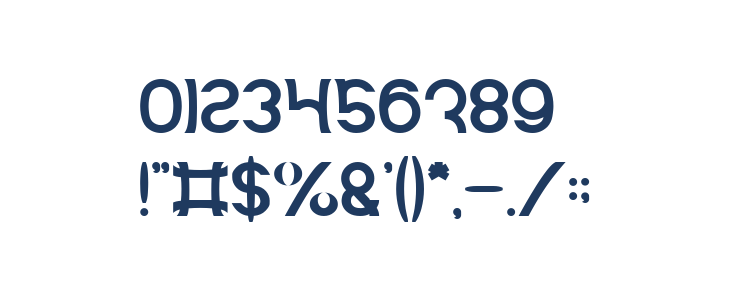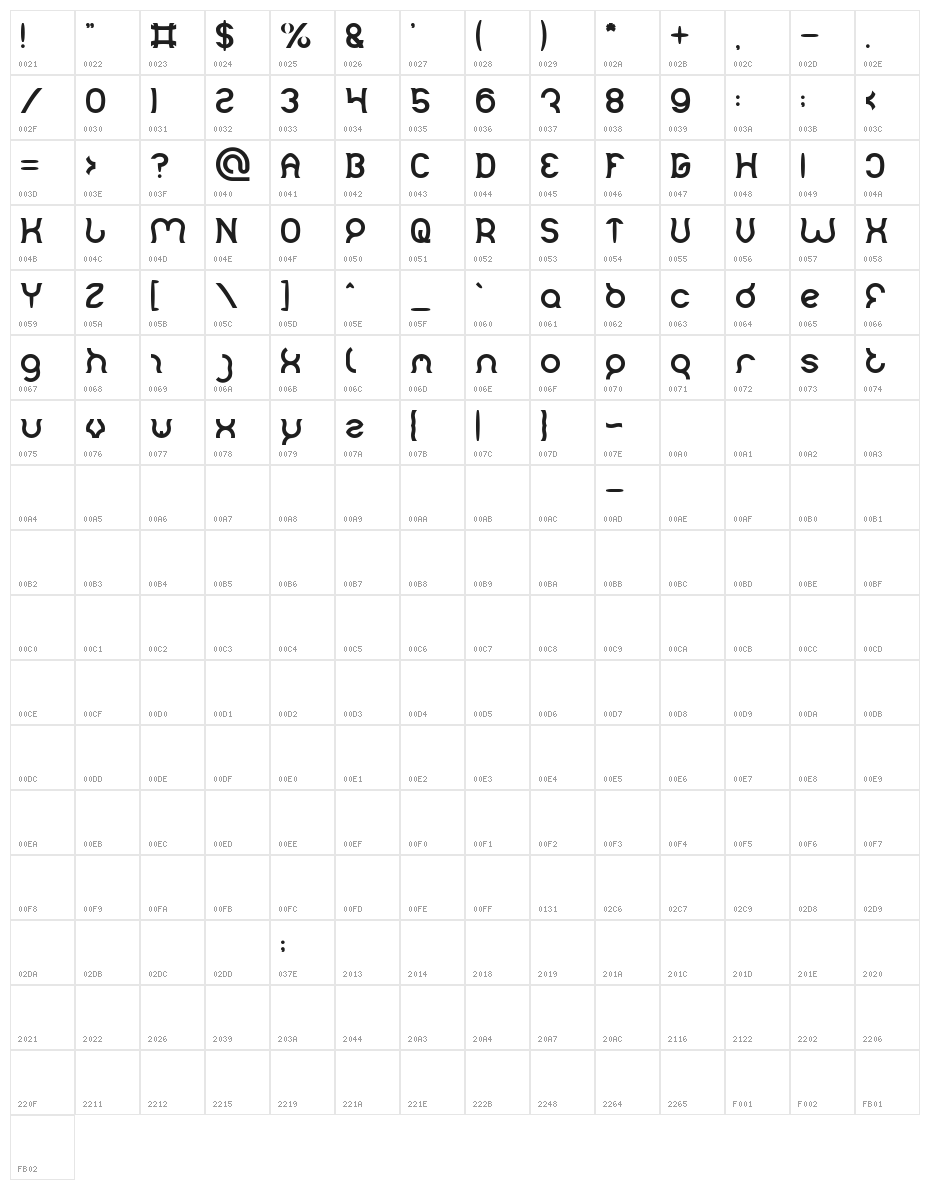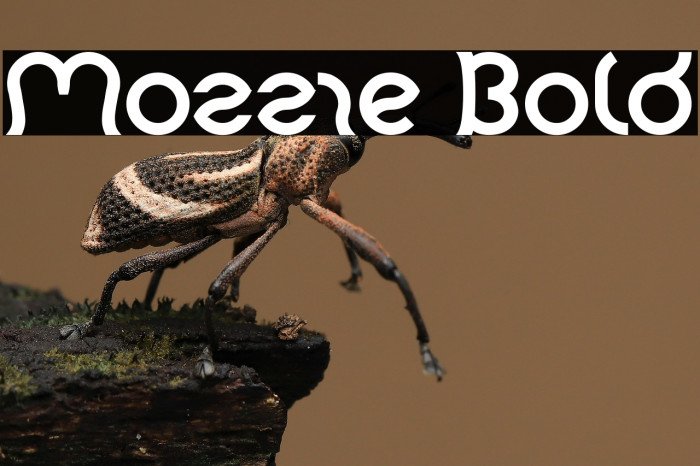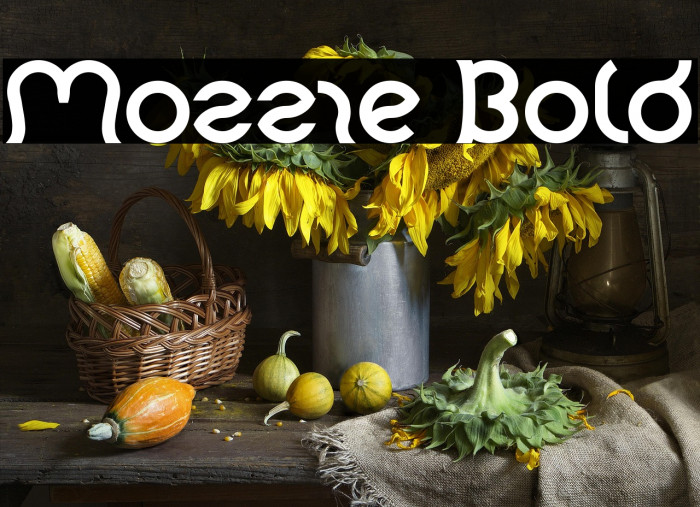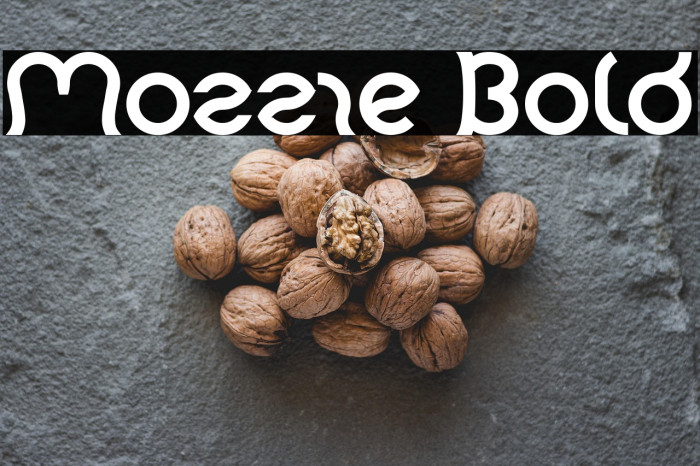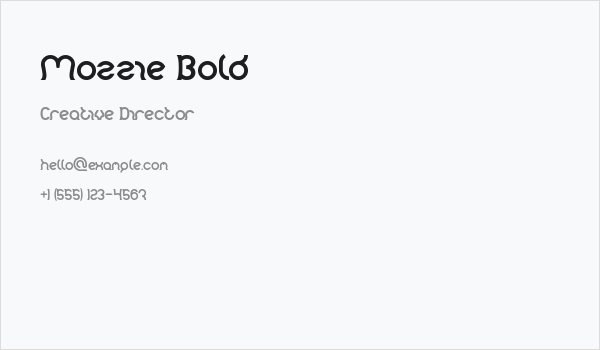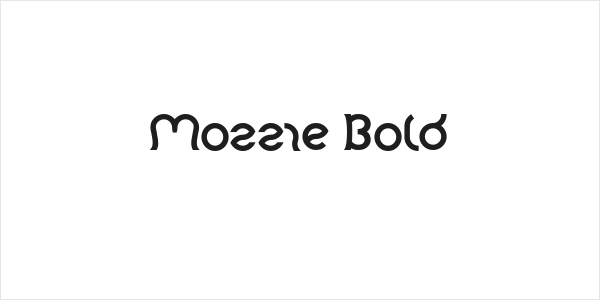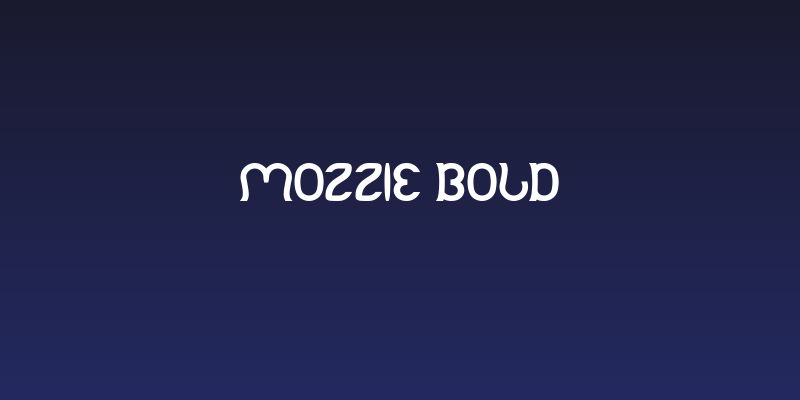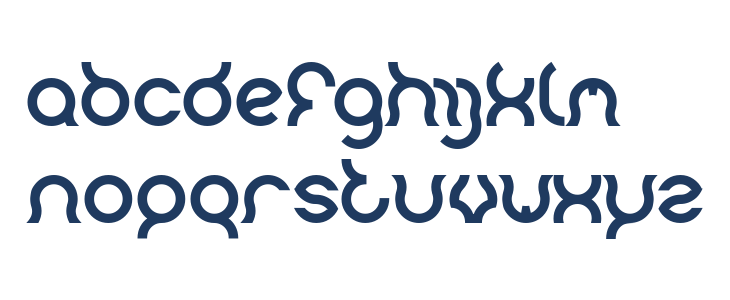
Mozzie Bold Font
Mozzie Bold Description
This font features a bold and playful design with unique curves and loops that give it a distinctive and whimsical appearance. The characters are well-rounded with a consistent stroke weight, creating a harmonious and balanced look. The uppercase letters have a strong presence, while the lowercase letters maintain a friendly and approachable feel. Numbers and special characters are designed to match the overall style, ensuring consistency throughout. The font's boldness makes it stand out, making it suitable for eye-catching designs.
| Overall Style | Playful, Whimsical, Bold |
| Proposed Projects | Ideal for children's books, playful branding, posters, and creative projects that require a fun and engaging typeface. |